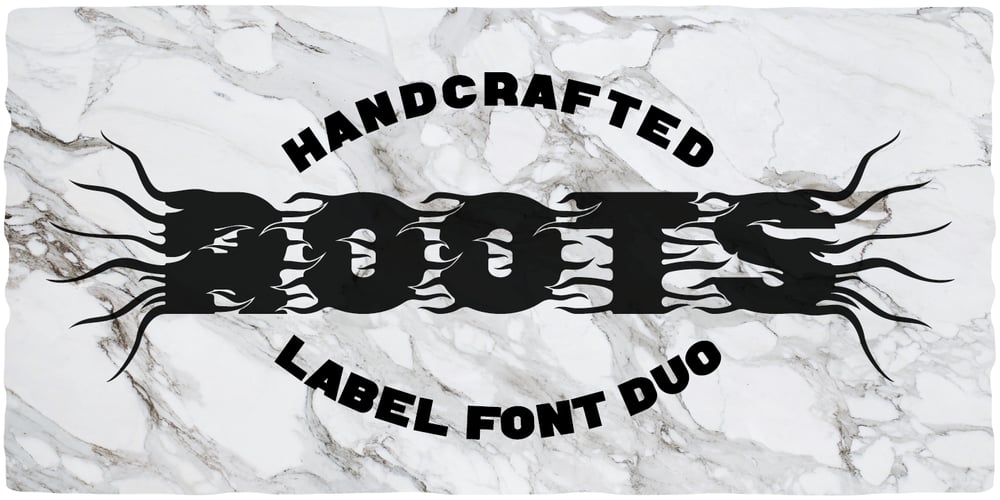
Roots Font Family was designed by Oleg Voznyy and published by Vozzy. Roots contains 2 styles and family package options. Stylized as a virus, this hand crafted label typeface is named Roots. This font contains capital and small characters. All capital characters have alternates for ending of words. Roots has two styles: Original and Simple. The simple style looks clean and bold and is a perfect support of your design and combines will with the eccentric Original style. Both styles have numbers, punctuation and multilingual characters. You can see all available characters on the preview.